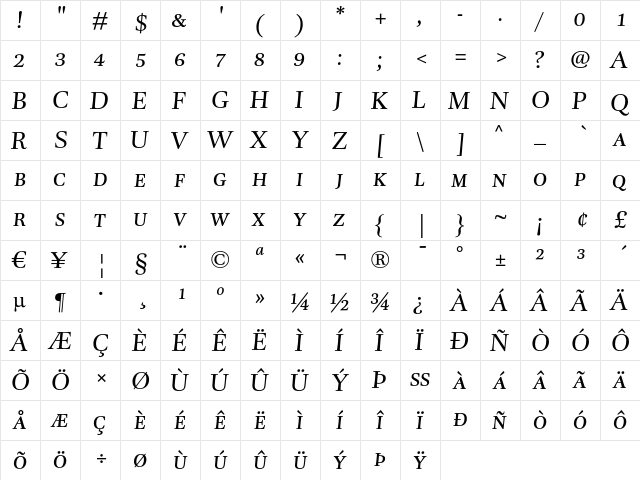
DTLUnicoT-Caps Italic Font Preview
DTLUnicoT-Caps Italic
DTLUnicoT-Caps Italic Font Details
| Foundry | Dutch Type Library |
| Designer | Michael Harvey |
Design Context for DTLUnicoT-Caps Typeface
DTLUnicoT-Caps is a composed and adaptable typeface that performs quietly and consistently across a wide range of design contexts. The dynamic lean of this cut emphasises speed and emphasis in any layout.